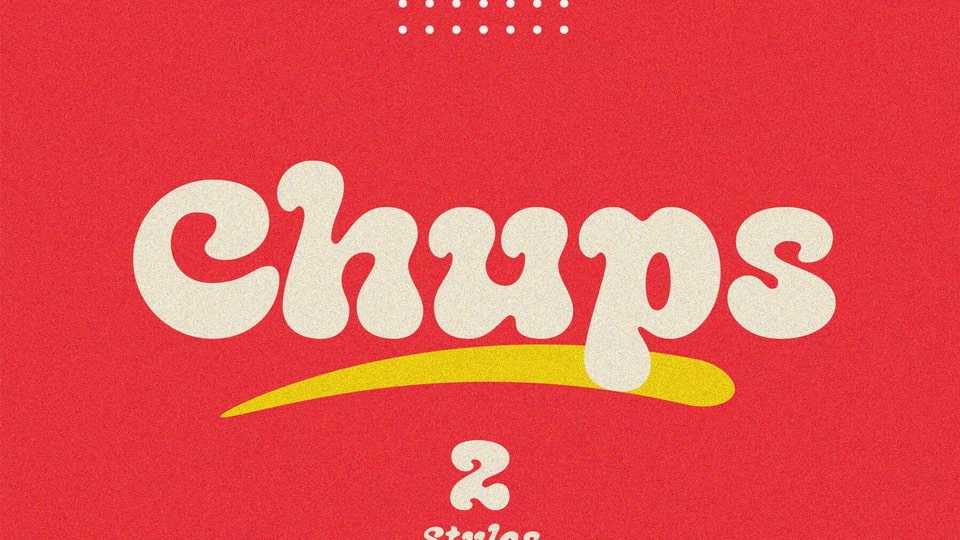
Download Chups font, a retro groovy typeface with rounded corners that is perfect for designing with a retro style. With bold style and unique shapes, Chups brings a touch of retro and grooviness to any design project.